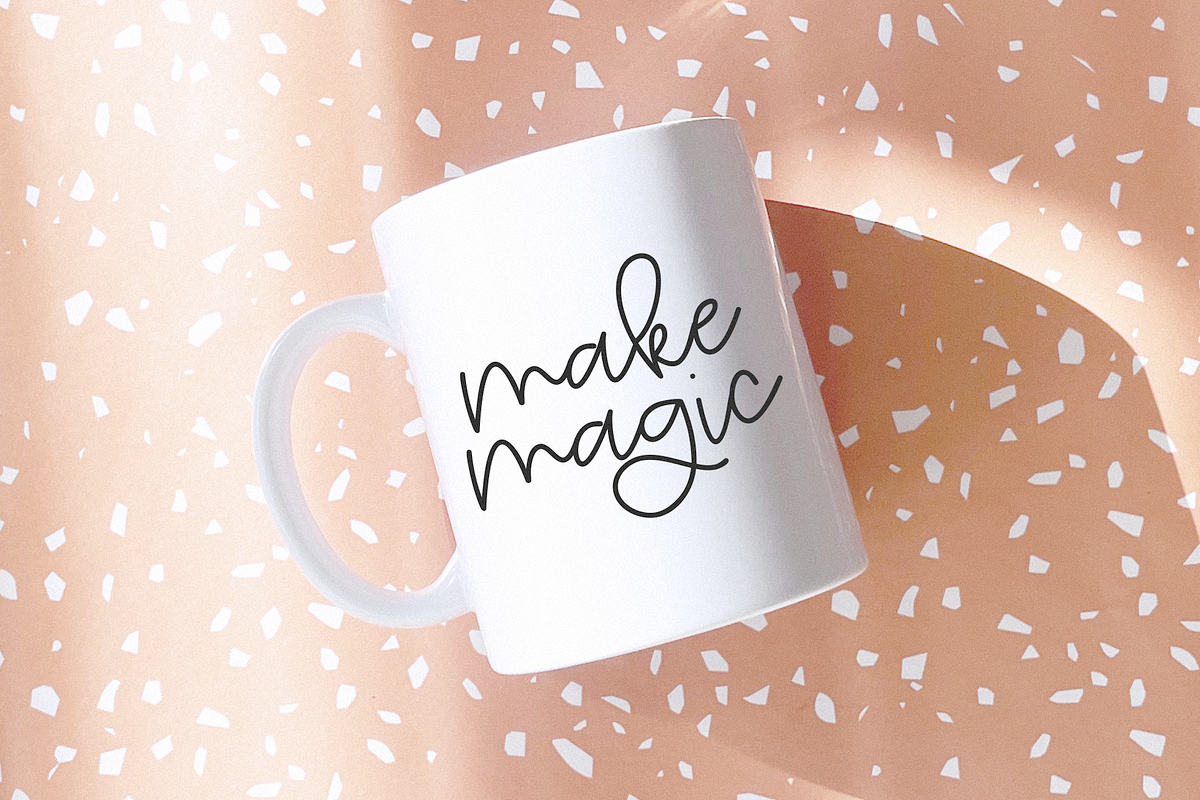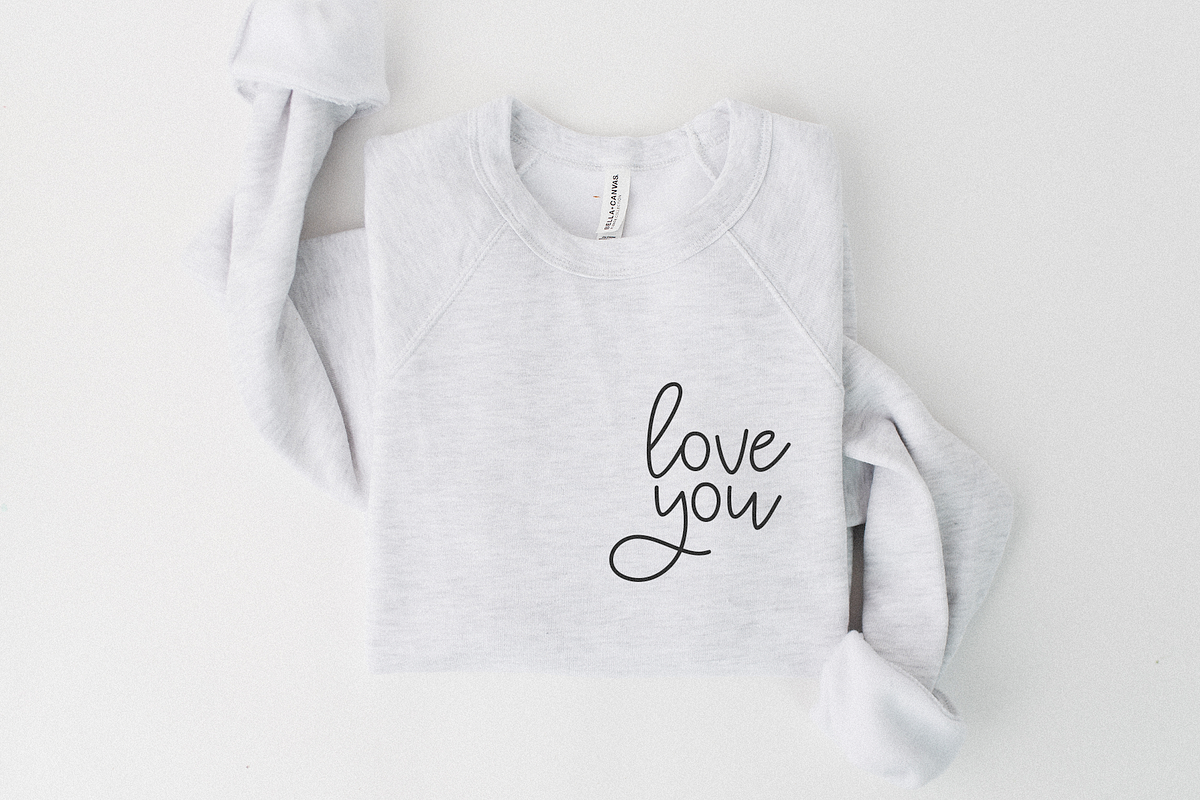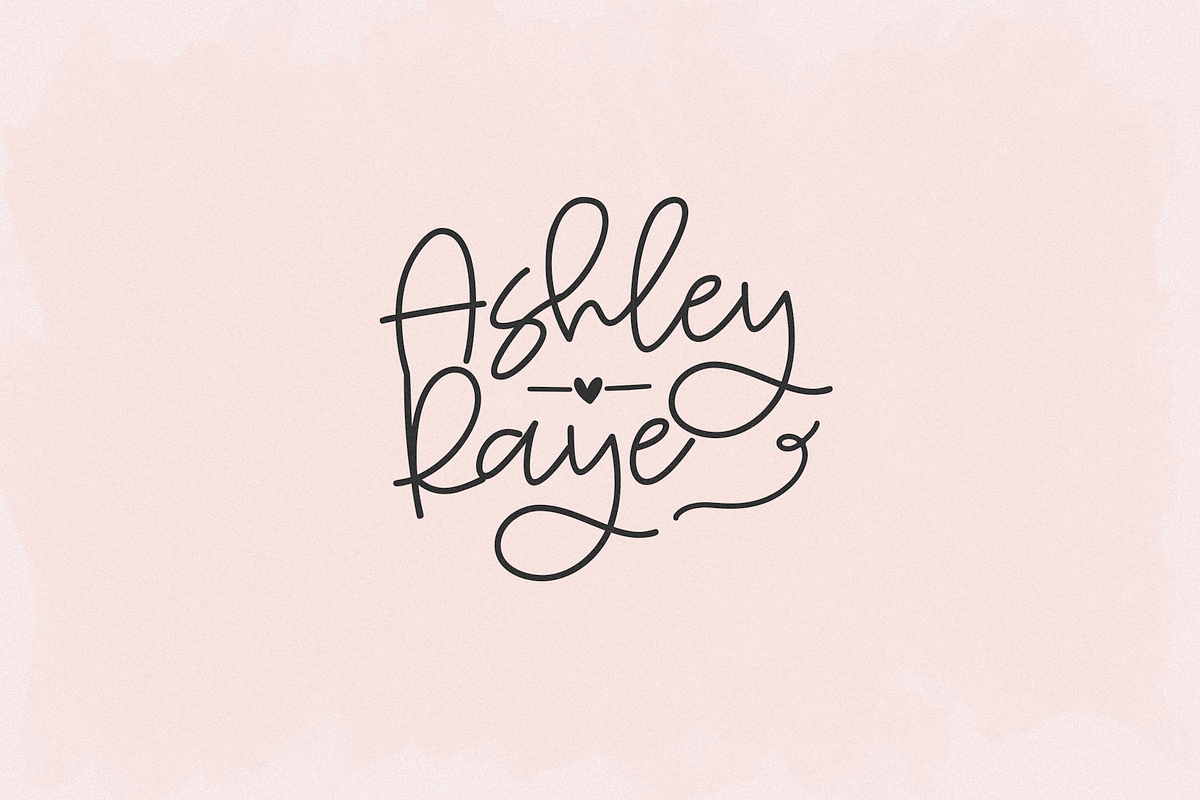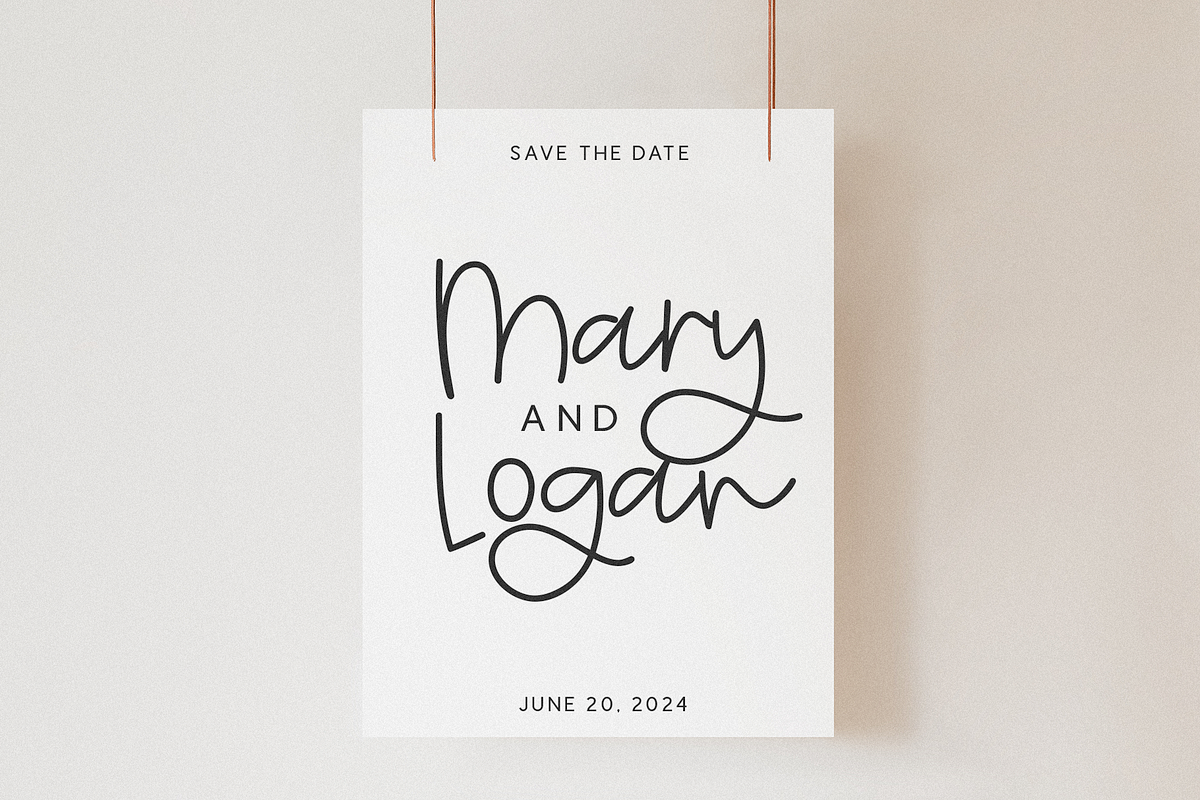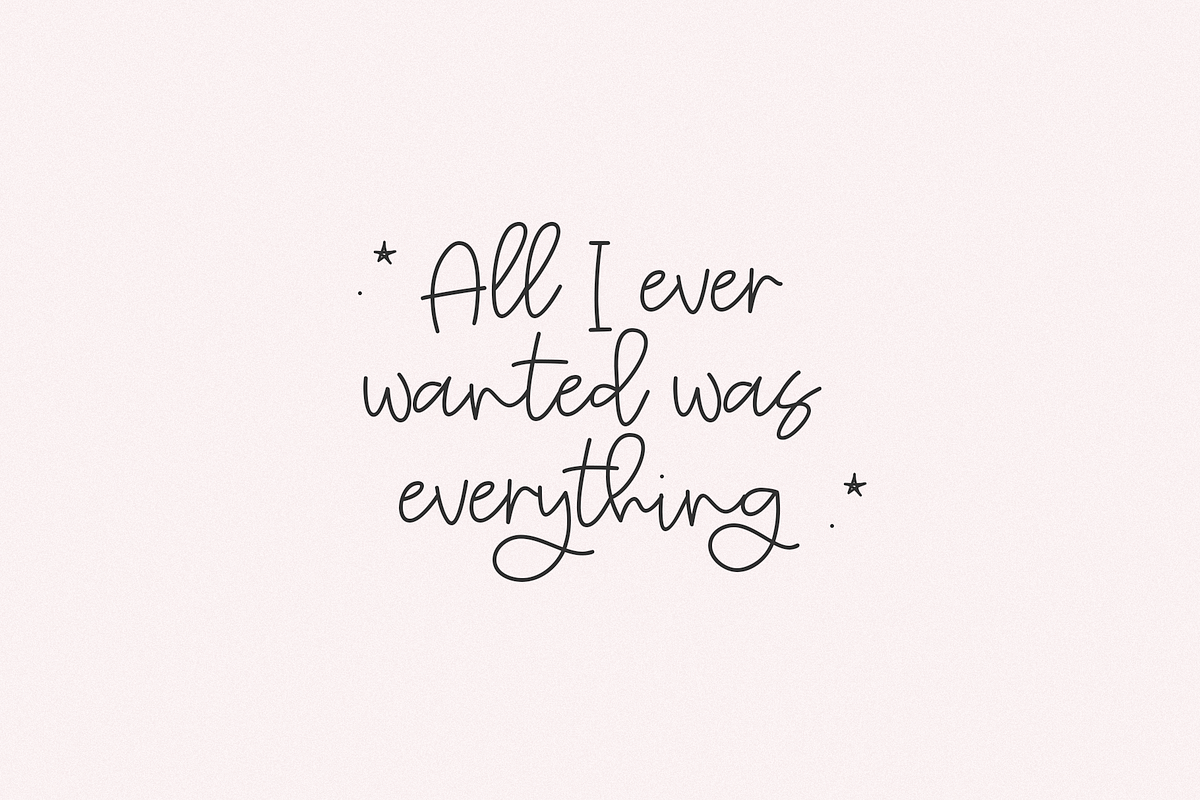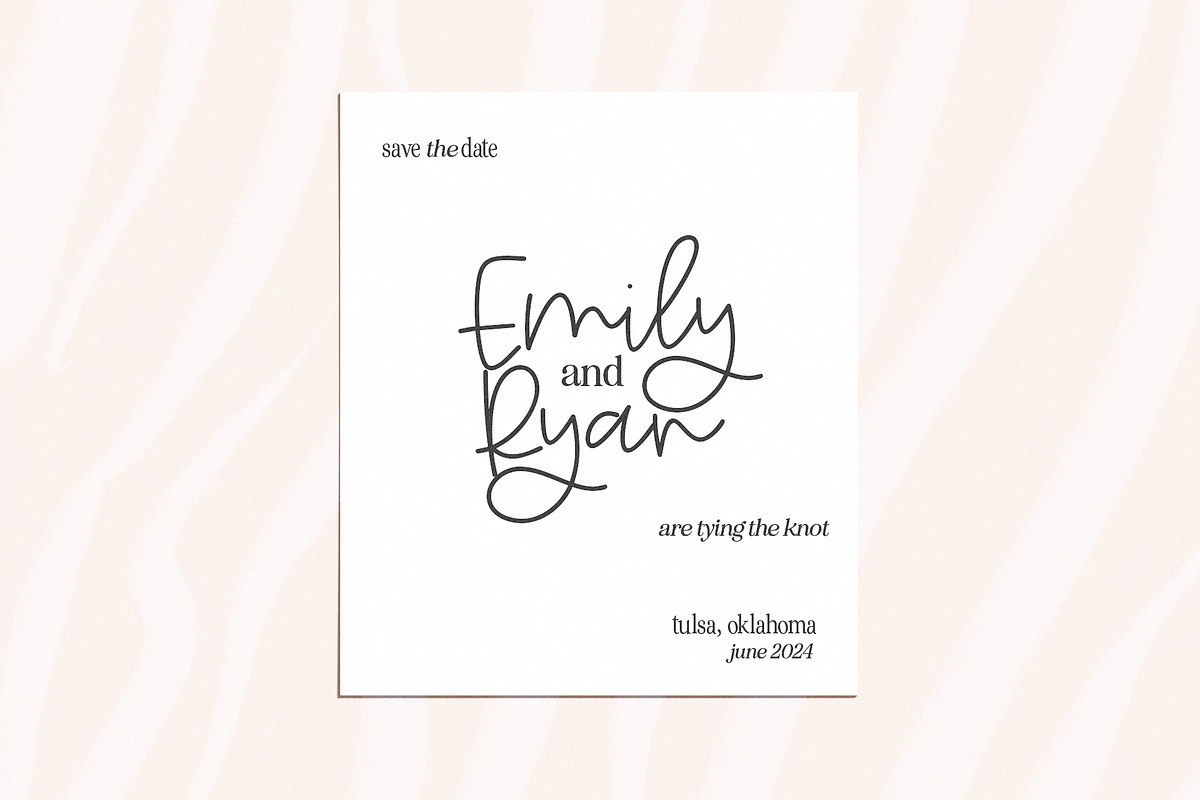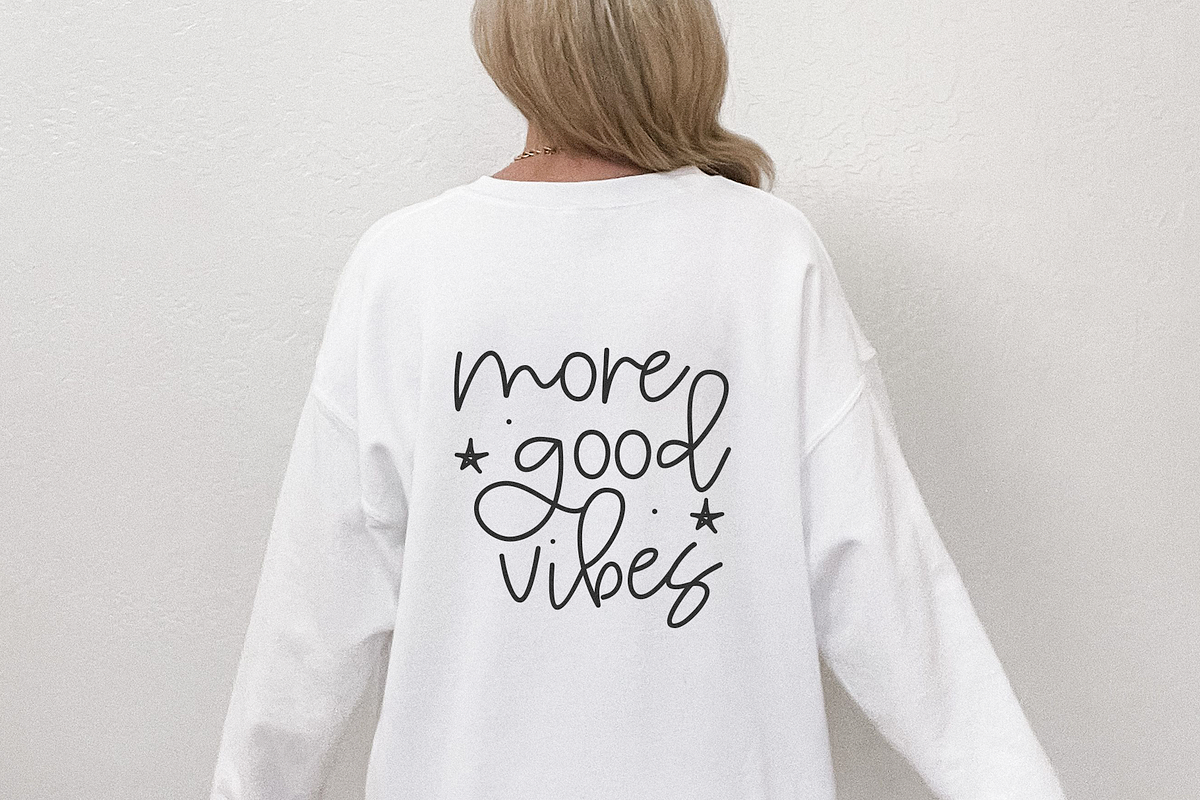
Guilty | Handwritten Script Font
Guiltyis a handwritten script font.
This font is perfect for crafts, svg files, quotes, headings, blogs, logos, invitations, wedding decor, farmhouse designs and more!
Guilty | Handwritten Script Font by KA Designs fits naturally into Branding, posters, packaging, typography.